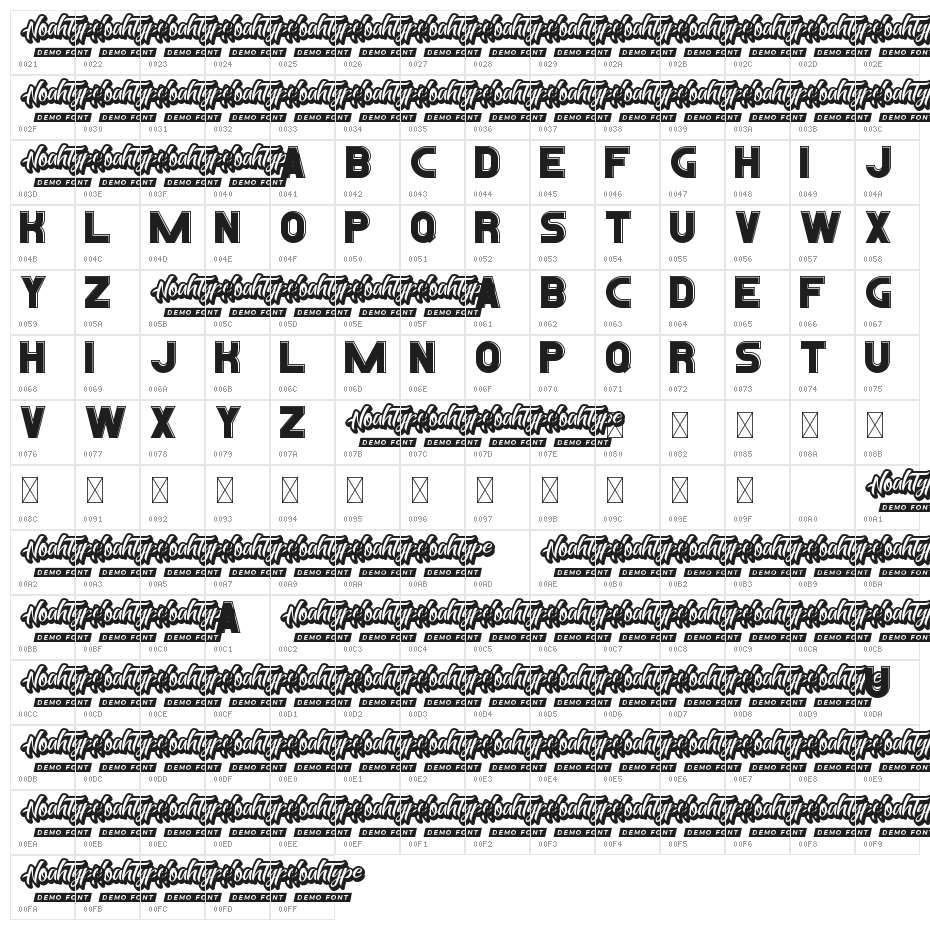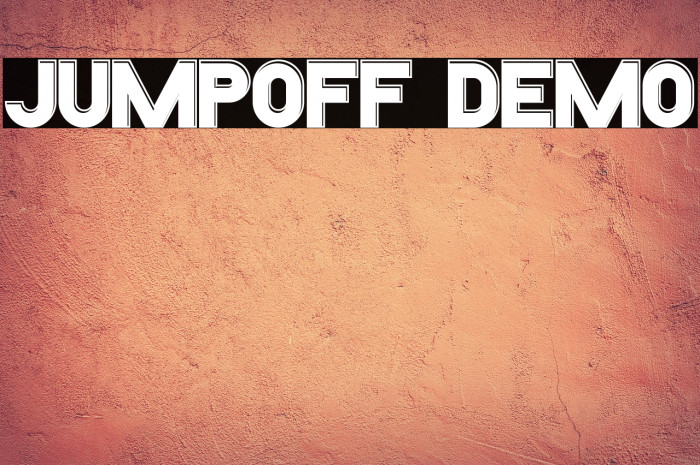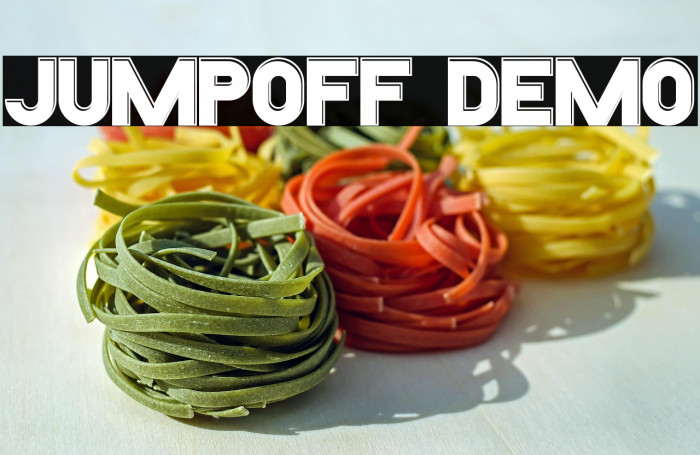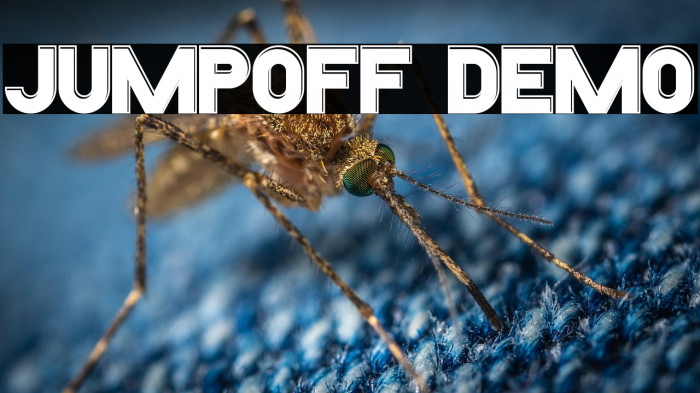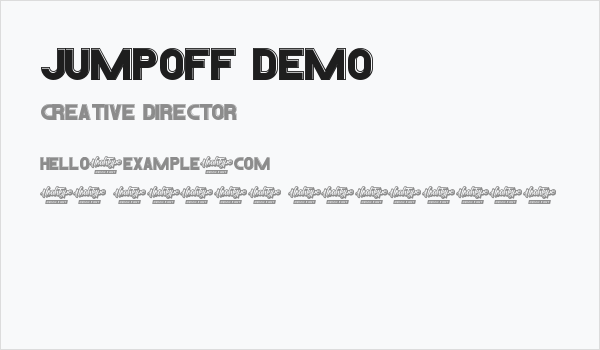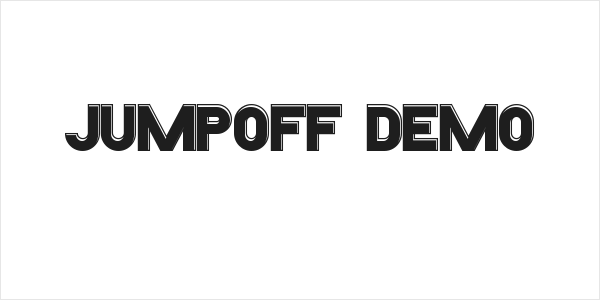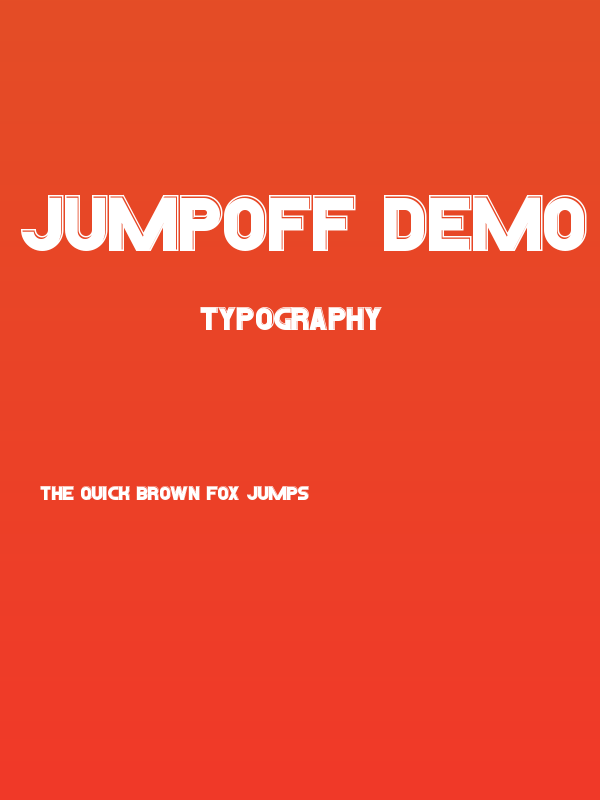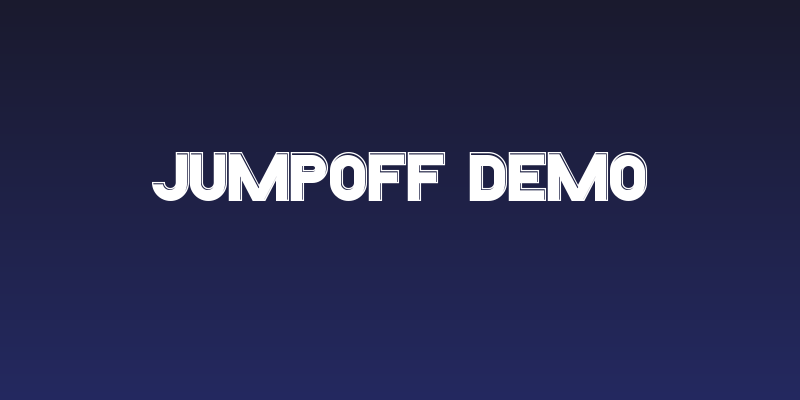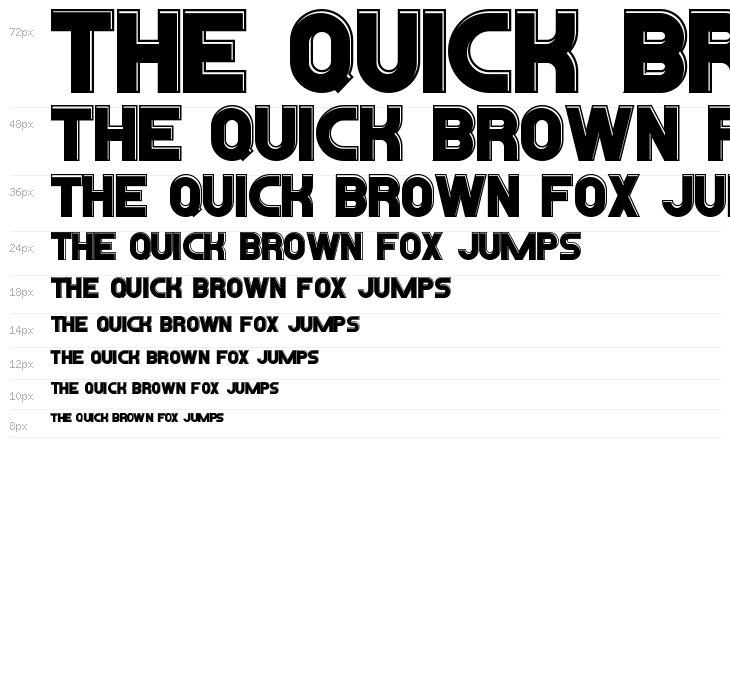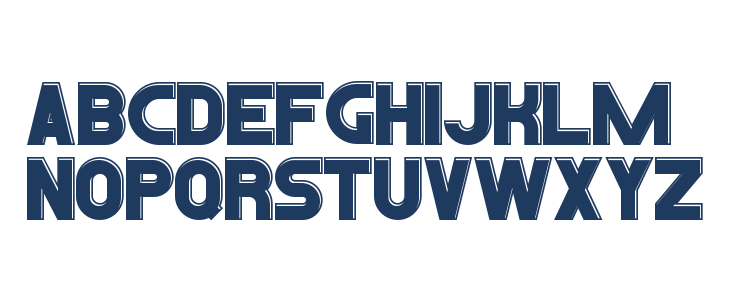
Jumpoff Demo Font
Jumpoff Demo Description
This font features a bold, geometric design with a strong presence. The characters are blocky and robust, with a slight 3D effect created by the use of shadows or outlines. The uppercase letters are uniform in height and width, creating a cohesive and structured appearance. The font's style is reminiscent of retro or vintage signage, making it ideal for projects that require a bold statement. The characters are evenly spaced, ensuring readability even at smaller sizes. This font is perfect for headlines, posters, and any design that needs to capture attention with its striking and dynamic look.
| Overall Style | Retro |
| Use Case | Headlines, Posters, Branding |
| Proposed Projects | Ideal for posters, headlines, branding, and any design that requires a strong visual impact. |